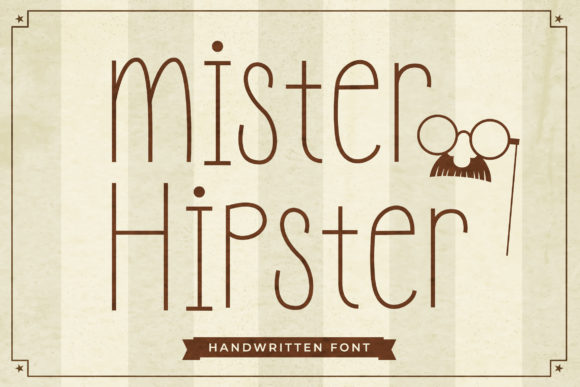
Step into the realm of typography and unveil the charm of Mister Hipster, the sans serif font crafted by TypeFactory. Its essence lies in simplicity and elegance, where each letterform is meticulously designed to exude a touch of sophistication and modernity. Whether you're composing a captivating cover letter, crafting an alluring brand identity, or simply seeking a font that adds a dash of style to your creative endeavors, Mister Hipster is the perfect choice.
With its clean lines and subtle curves, Mister Hipster effortlessly blends into a symphony of design possibilities. Its minimalist nature allows it to seamlessly adapt to diverse projects, enhancing their visual appeal. Whether you're creating marketing materials, designing social media graphics, or crafting stunning website layouts, Mister Hipster acts as a versatile chameleon, effortlessly conforming to your creative vision.
Embrace the allure of Mister Hipster and elevate your designs to new heights. Its slender strokes and airy structure evoke a sense of lightness and grace, captivating the eyes of your audience. Each letterform dances across the page, forming words that carry power and impact. Whether you're a seasoned designer or just starting your creative journey, Mister Hipster is the perfect companion, guiding you towards typographic excellence.
Unlock the potential of Mister Hipster and witness the transformation of your designs. Its understated beauty complements a wide range of aesthetics, allowing it to blend seamlessly into your creative projects. From bold headlines that demand attention to delicate body text that whispers with elegance, Mister Hipster effortlessly adapts, enhancing the impact of your words. Experience the joy of creating with a font that not only elevates your designs but also reflects your unique style and personality.